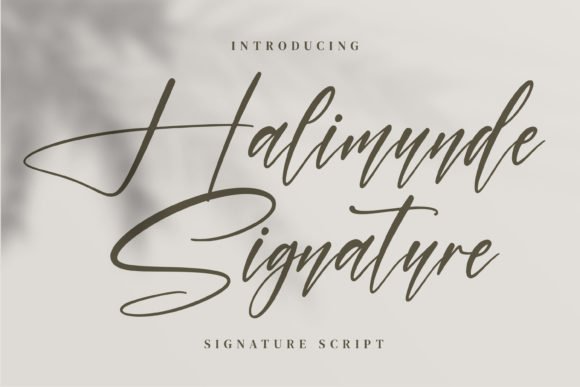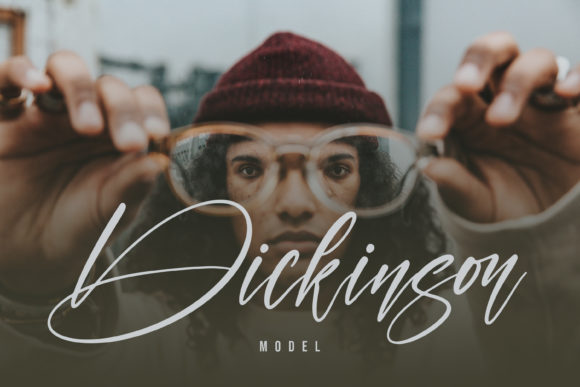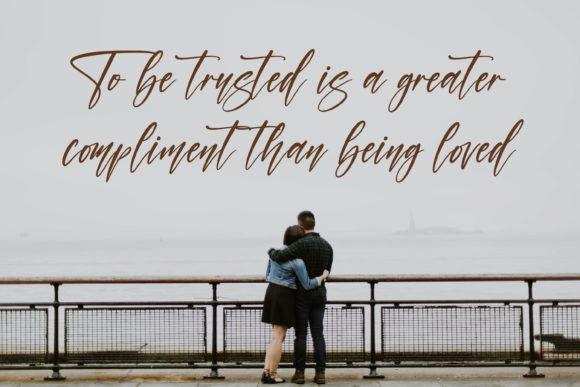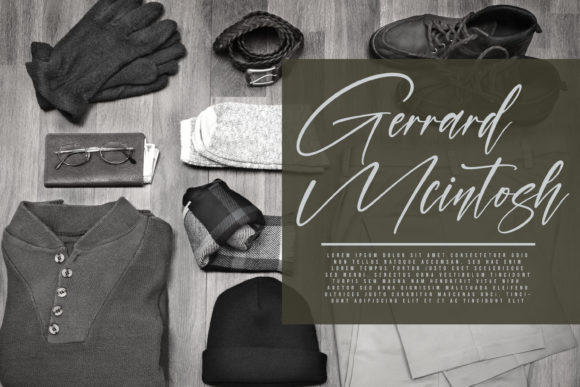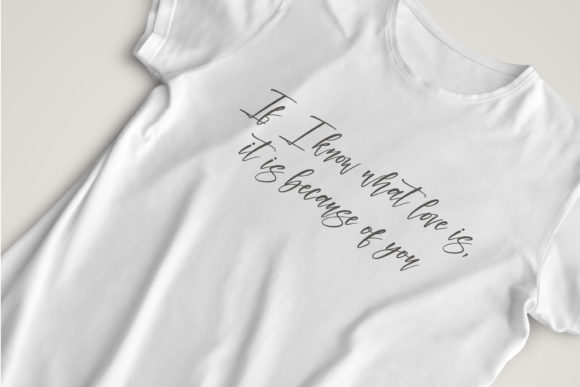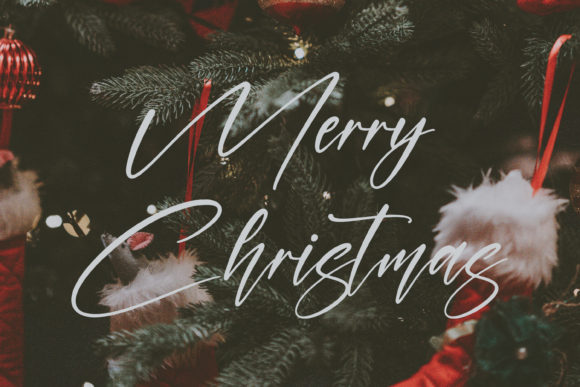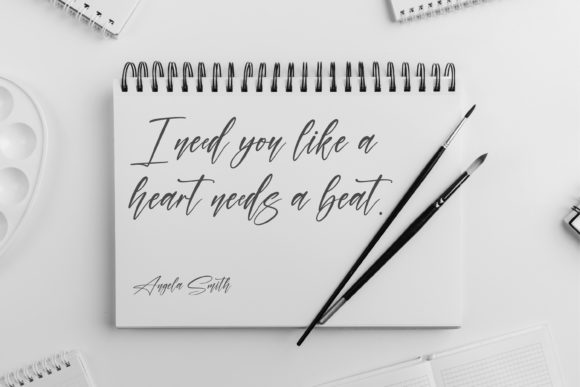
The Perfect Touch of Personality: Introducing Halimunde Signature Font
As a designer, have you ever stared at a blank page, searching for the perfect font to capture the essence of your creative vision? That’s exactly where I was when I discovered the Halimunde Signature Font. Its classic, handwritten style instantly transported me to a world of elegance and sophistication, begging to be brought to life.
Halimunde Signature Font is a versatile and charming font that’s perfect for adding a personal touch to your designs. Whether you’re crafting beautiful wedding invitations, stunning social media posts, or gorgeous stationary art, this font is sure to elevate your creations. Its unique character and flair make it a valuable asset for designers who want to stand out from the crowd.
Halimunde Signature Font Key Features
- Font Family: Halimunde Signature Font is a unique and elegant font family designed for signatures, logos, and branding purposes.
- Character Set: Includes a wide range of characters, including uppercase and lowercase letters, numbers, punctuation marks, and special characters.
- Unique Characteristics: Features a distinctive and flowing design, with subtle connections between letters to create a sense of fluidity and elegance.
- Font Size: Designed to be used at various font sizes, from 8pt to 48pt, making it suitable for a wide range of applications, including business cards, letterheads, and signage.
Halimunde Signature Font Review
Overall, I was excited to dive into the Halimunde Signature Font, but my experience was a bit of a mixed bag. Here’s the breakdown:
- Unique and elegant design aesthetic: The font’s modern, handwritten feel is perfect for adding a touch of sophistication to your designs.
- Good legibility: The font is easy to read, even in smaller sizes, making it suitable for body text and titles.
- Limited character set: The font only includes a standard character set, which may not be sufficient for languages that require additional characters.
Overall, the Halimunde Signature Font is a solid choice for designers who want a unique, elegant font for their projects. However, its limitations may make it less suitable for larger-scale or commercial projects. With some additional development, this font has the potential to be a top contender in the market.
Getting the Most Out of Halimunde Signature Font
To get the most out of Halimunde Signature Font, use it for:
- Creative titles and headings.
- Personalized signatures and branding.
- Unique typography and design elements.
Halimunde Signature Font is perfect for:
- Personalized business cards and marketing materials.
- Artistic and creative projects.
Q: What is the character set for the Halimunde Signature Font?